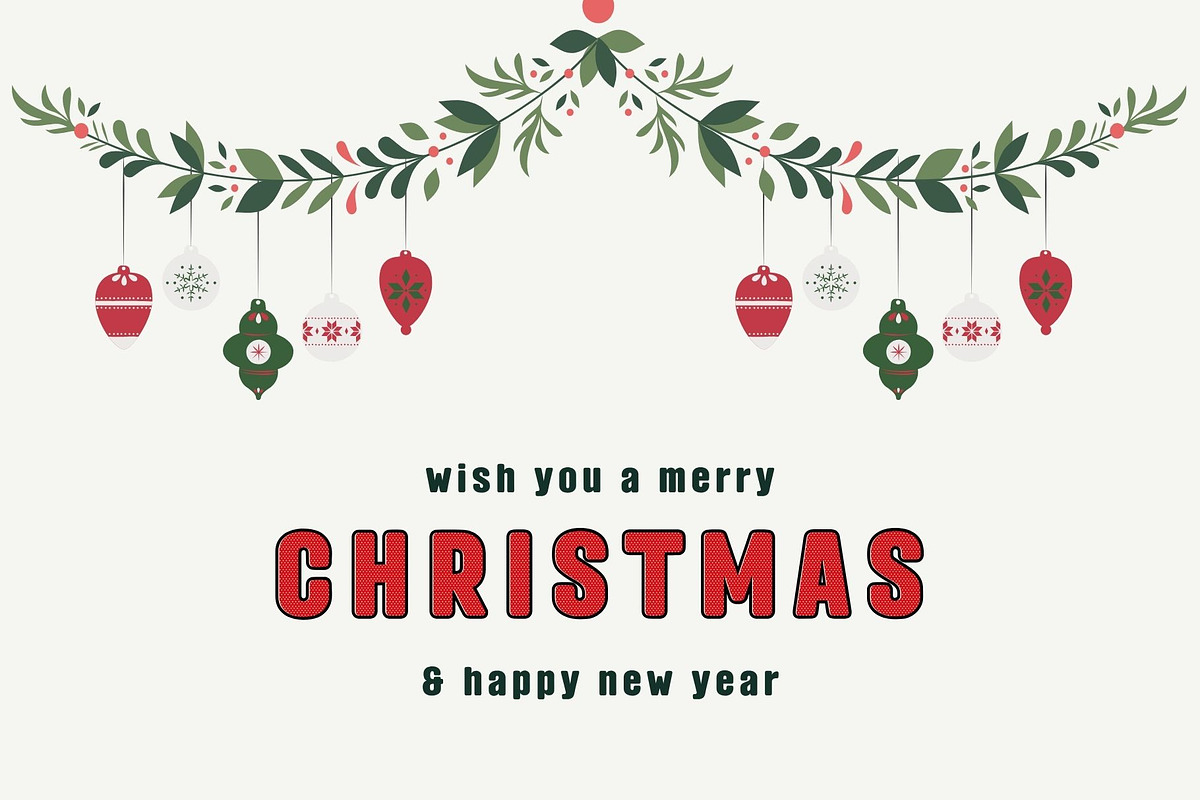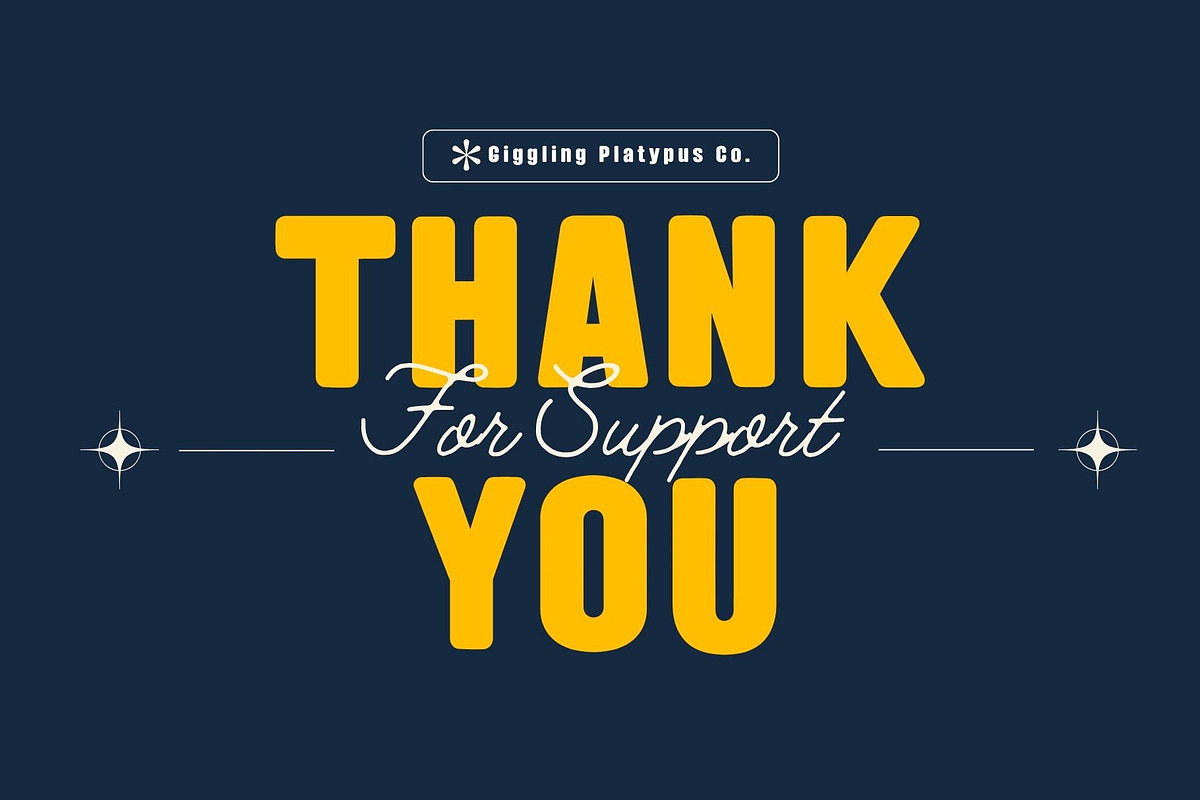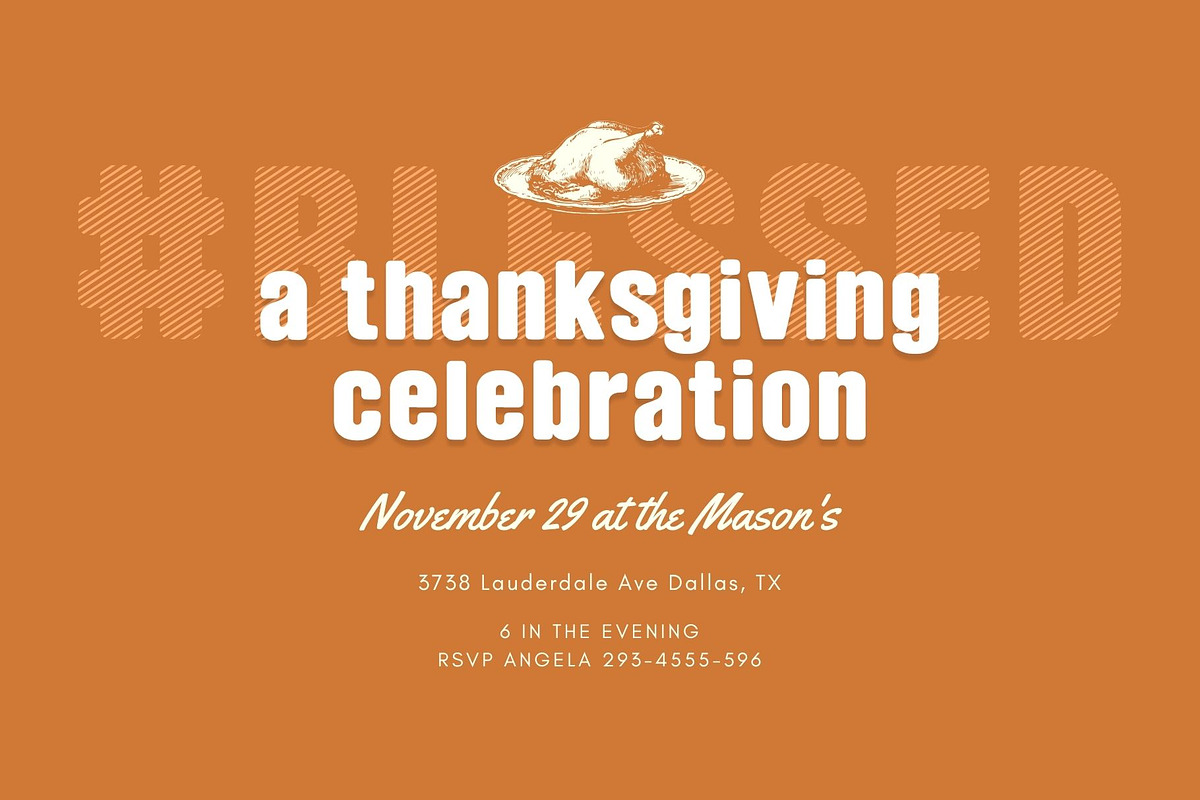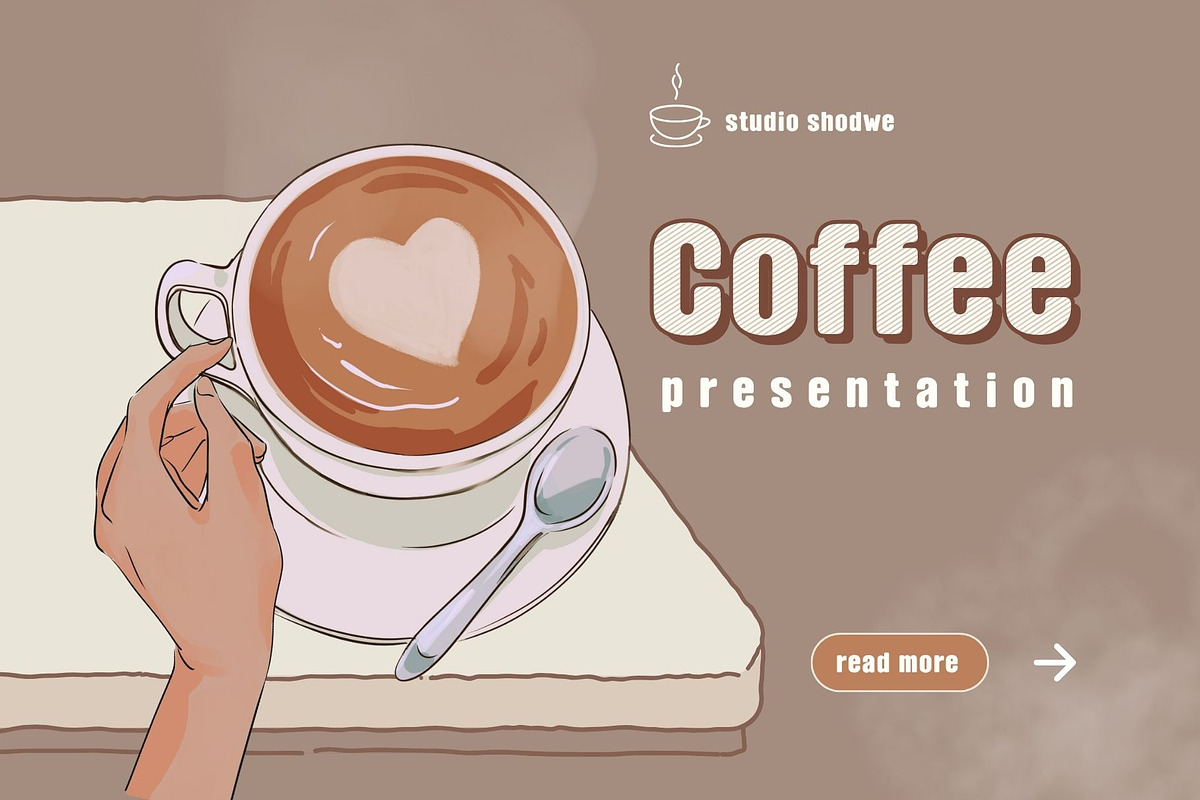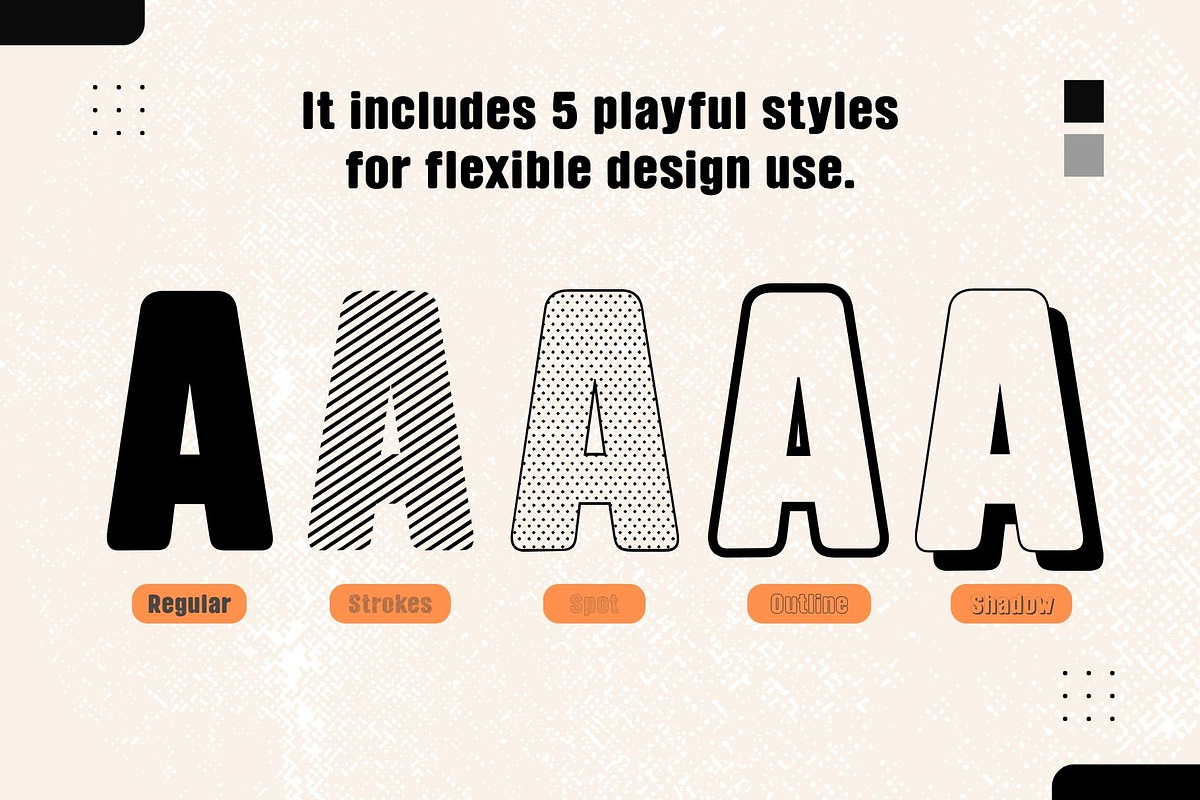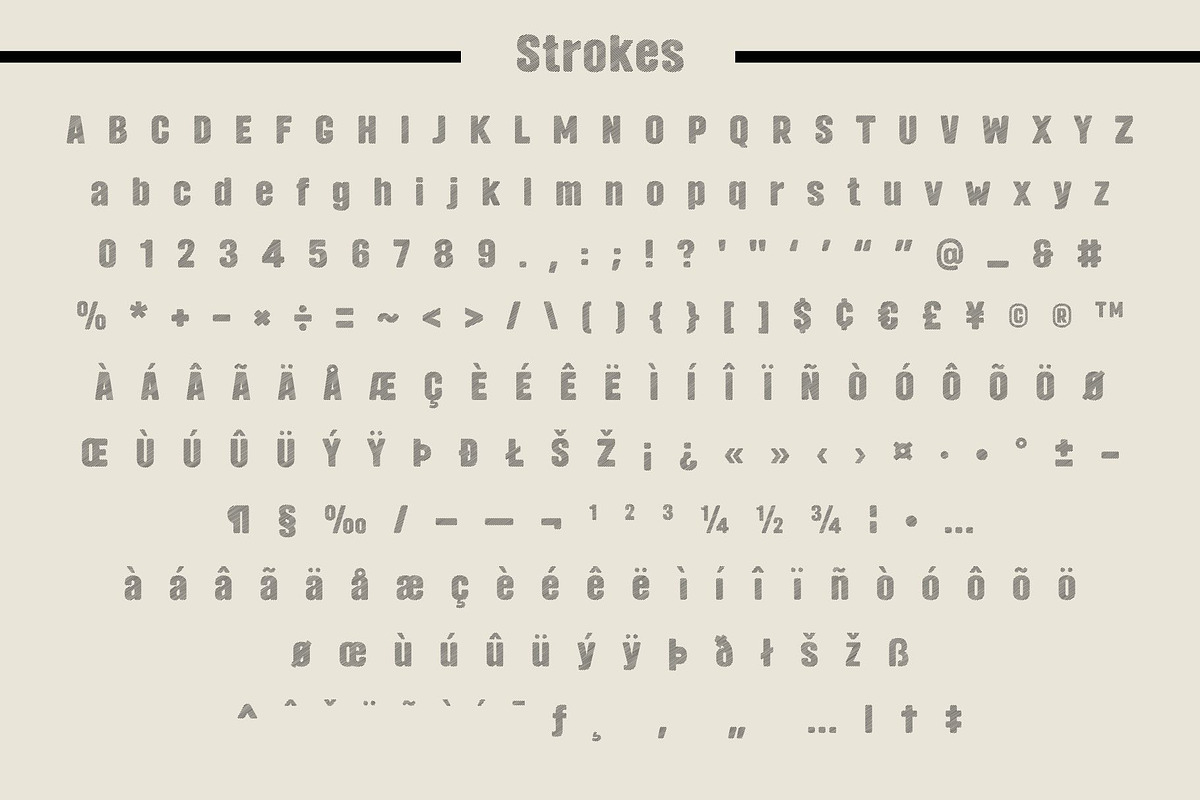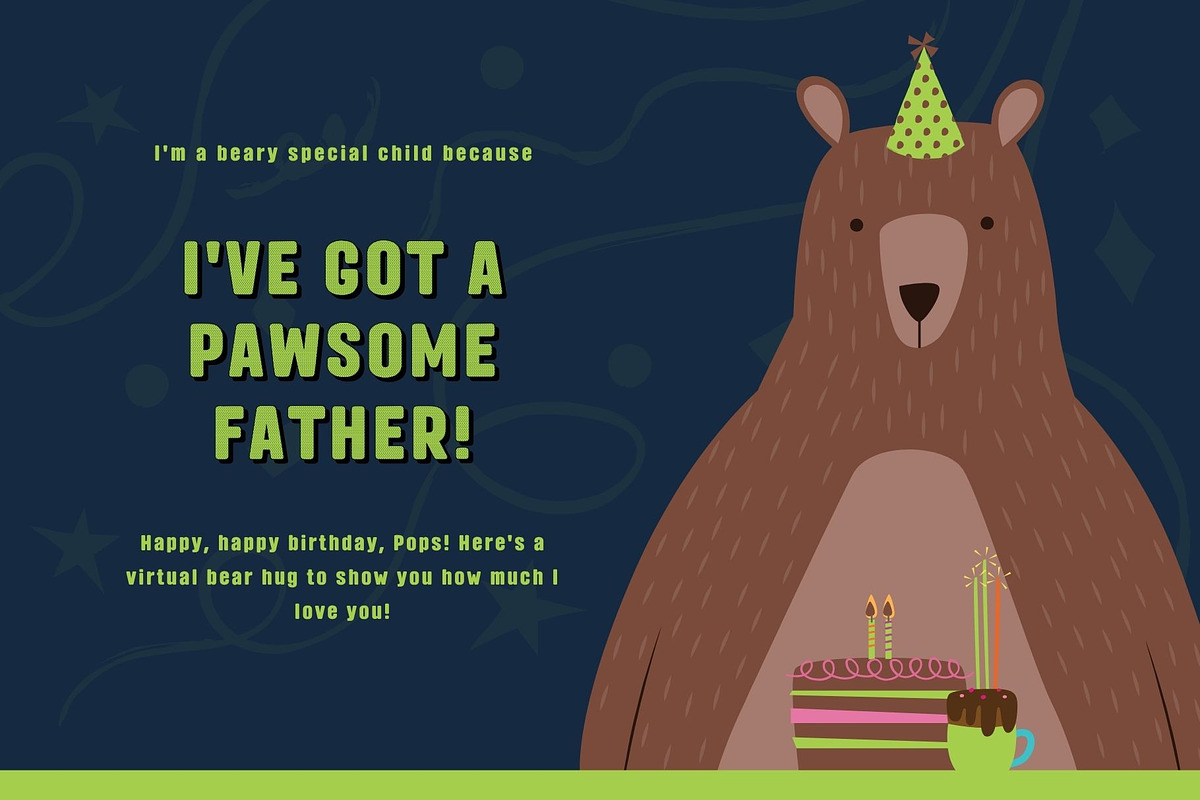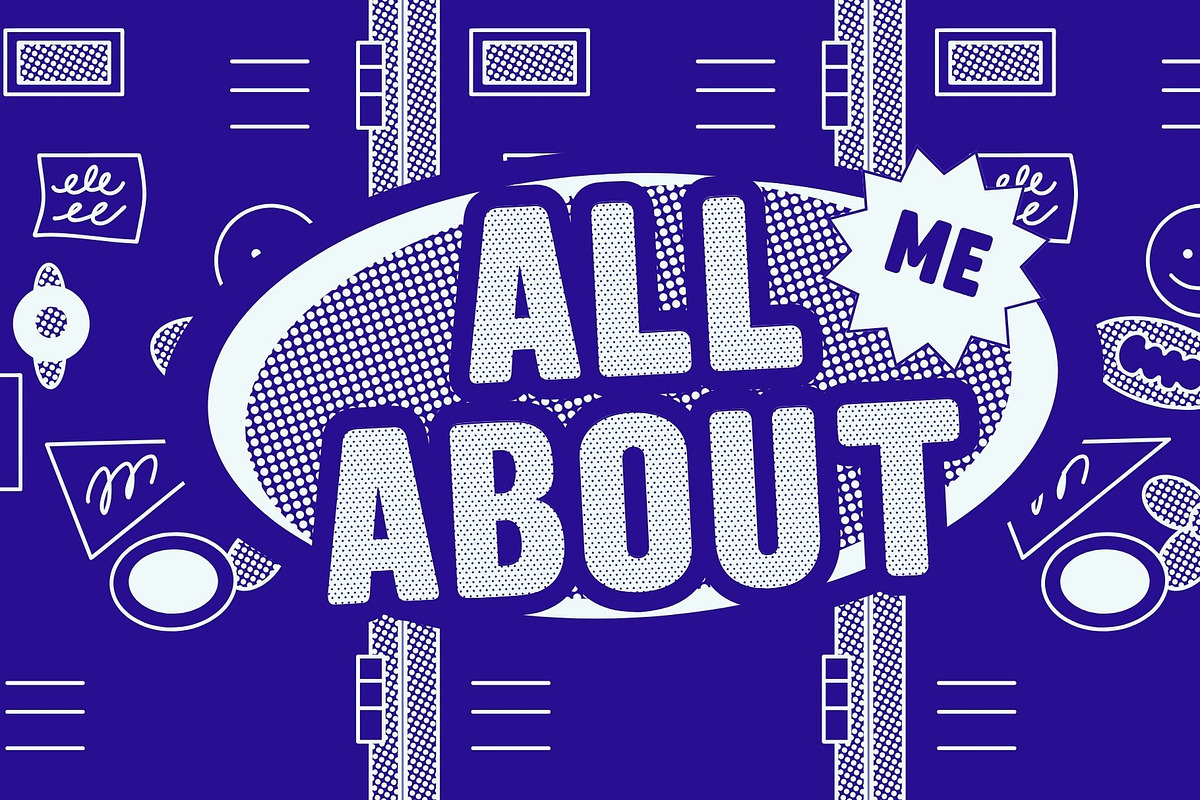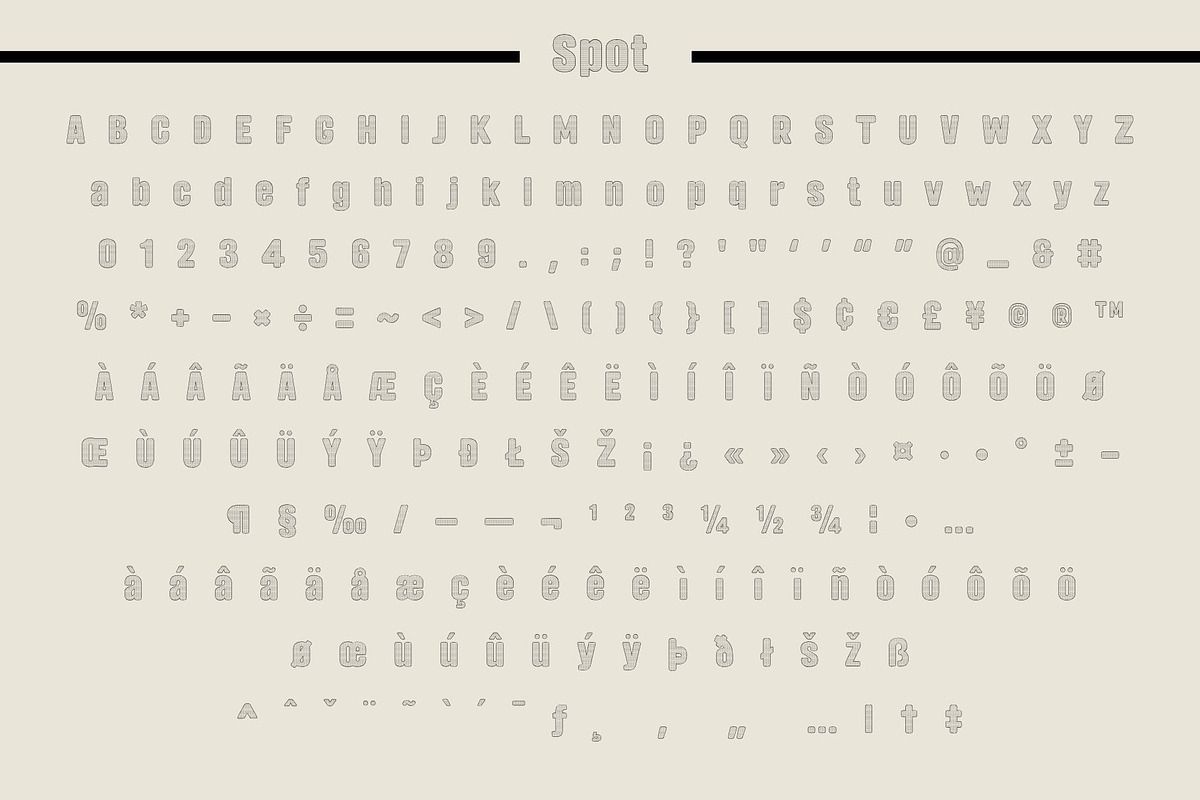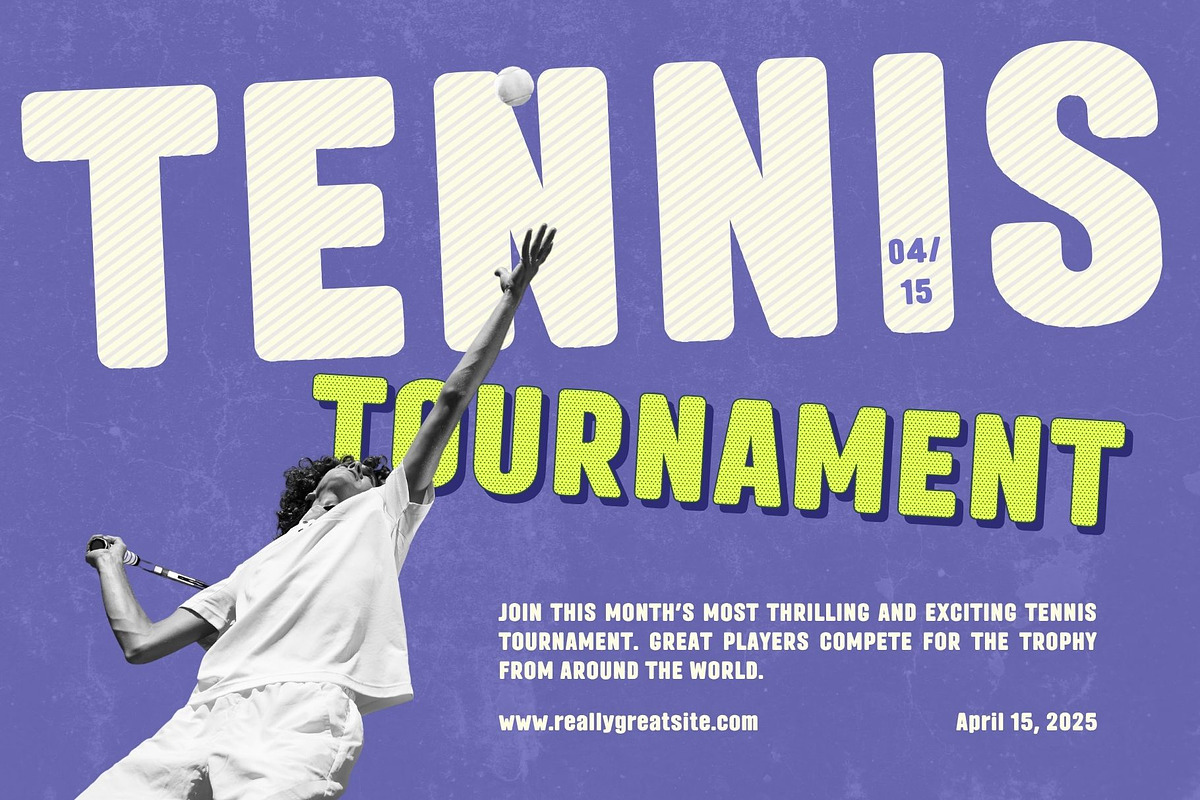
Fox Kamari : 5 Font Styles
Fox Kamari – Playful Bold Display Font Family
Fox Kamari is a bold and playful display font designed to bring fun energy into every project. With chunky shapes and smooth curves, it’s perfect for eye-catching titles, kid-themed designs, branding, and cheerful illustrations.
This font family includes 5 creative styles—Regular, Strokes, Shadow, Outline, and Spot—allowing you to mix and match for unique and flexible design results. Whether you’re creating posters, packaging, stickers, logos, or social media graphics, Fox Kamari adds a friendly and expressive character that stands out effortlessly.
Perfect for: Children’s projects, playful branding, cartoon graphics, fun headers, cute merchandise, and creative display typography.